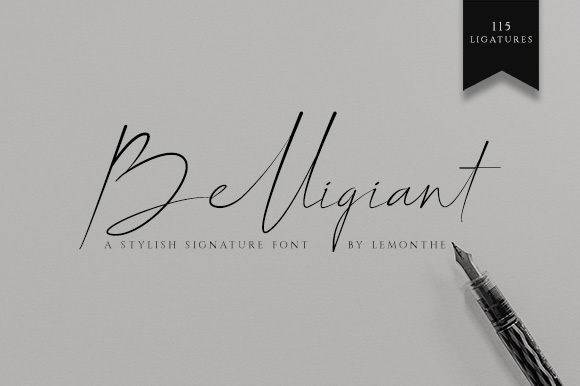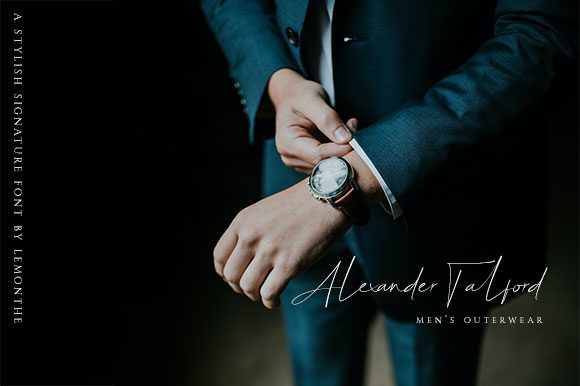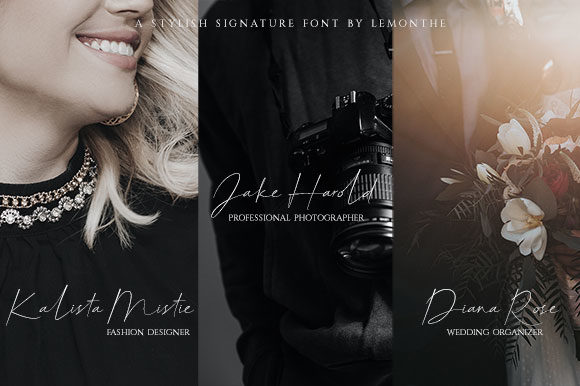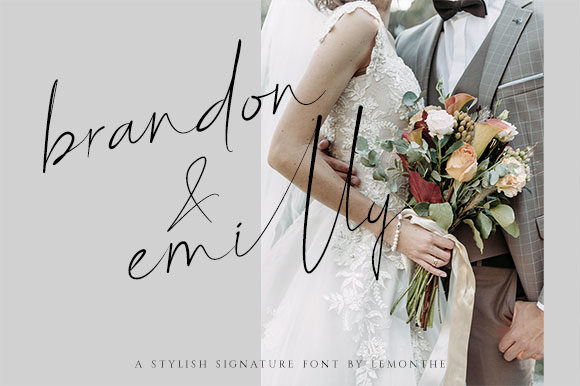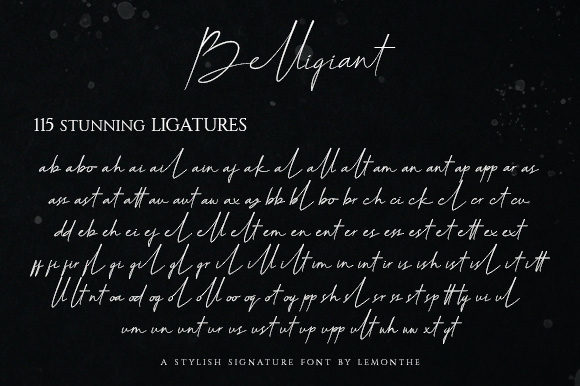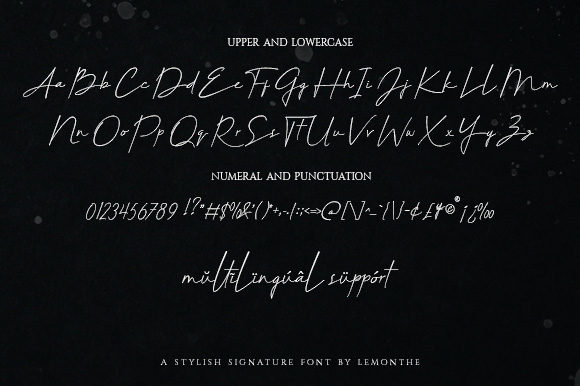
Belligiant Font: Elevate Your Designs with a Timeless Signature Style
In the world of typography, a font can make or break a design. For designers and crafters looking to add a touch of elegance and sophistication to their projects, Belligiant Font is an exceptional choice. This beautiful signature font boasts a classic style that exudes friendliness, making it perfect for creating original and outstanding designs.
The Characteristics of Belligiant Font
Belligiant Font is distinguished by its classic yet approachable aesthetic. Its unique blend of traditional and modern elements gives it a distinctive look that sets it apart from other fonts. The font features:
- Elegant Lines: Belligiant’s lines are smooth and flowing, contributing to its classic appeal.
- Readable and Friendly: Despite its sophisticated look, the font maintains a friendly feel, making it highly readable and approachable.
- Versatility: Belligiant is designed to work well in various design contexts, from digital media to print materials.
Why Choose Belligiant Font?
For designers and crafters, the right font can be a game-changer. Here are several reasons why Belligiant Font should be your go-to choice:
- Unique Designs: With Belligiant, you can create unique and standout designs that capture attention. Its distinctive style ensures your projects won’t go unnoticed.
- Time-Saving: The font’s versatility means you can use it across a range of projects, from invitations and quotes to branding and advertising, saving you time in searching for different fonts.
- Professional Look: Belligiant lends a professional and polished look to your designs, elevating them from ordinary to extraordinary.
Applications of Belligiant Font
The versatility of Belligiant Font makes it suitable for a wide array of applications:
- Digital Marketing Materials: Enhance your website, social media posts, and email newsletters with a sophisticated touch.
- Print Materials: Ideal for business cards, brochures, posters, and any printed materials that require a touch of elegance.
- Crafting and DIY Projects: Perfect for crafters who create handmade cards, scrapbooking, and other personalized items.
- Branding and Identity: Use Belligiant to create a consistent and professional brand image.
Tips for Using Belligiant Font Effectively
To maximize the impact of Belligiant Font in your designs:
- Mix and Match: Don’t be afraid to experiment with Belligiant in combination with other fonts to create visual interest.
- Adjust Size and Color: Play with the size and color of the text to emphasize certain elements and create hierarchy in your design.
- Consider the Context: Ensure that Belligiant aligns with the overall theme and tone of your project.
Belligiant Font is a powerful tool for designers and crafters aiming to infuse their projects with a classic yet friendly aesthetic. Its unique style, versatility, and readability make it an excellent choice for a wide range of applications. By incorporating Belligiant into your design repertoire, you’ll be well on your way to creating original, outstanding, and professional-looking designs that stand out from the crowd.
Whether you’re working on a digital project, crafting handmade items, or developing a brand identity, Belligiant Font is sure to elevate your work to new heights. Explore the possibilities of Belligiant today and discover how this beautiful signature font can transform your designs.